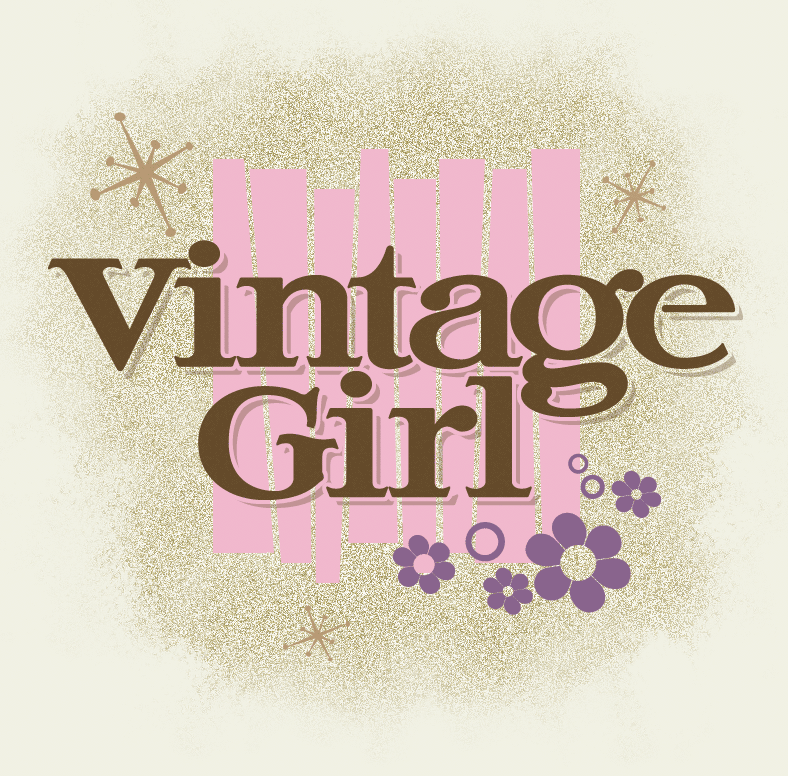
Quirky, vintage font set inspired and named after Samuel Welo's "At'a Boy" letters drawn in the early 1900's. Welo drew two styles, the Regular version shown below (Ataboy 165) and another more Tuscan style. Some of the lowercase ascenders rise above the cap height, which is an unusual characteristic of this font. Set includes both Regular and Shadow versions.